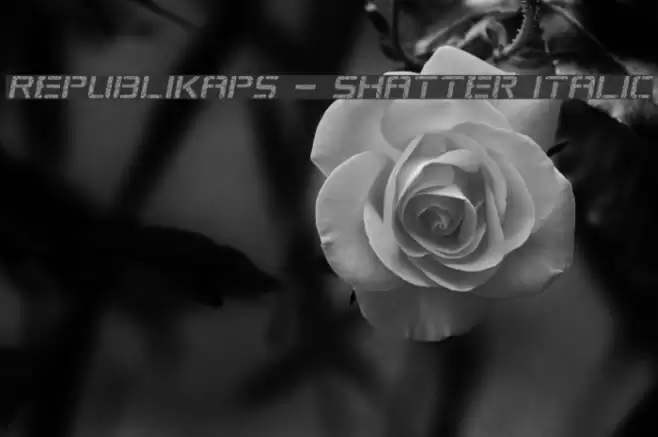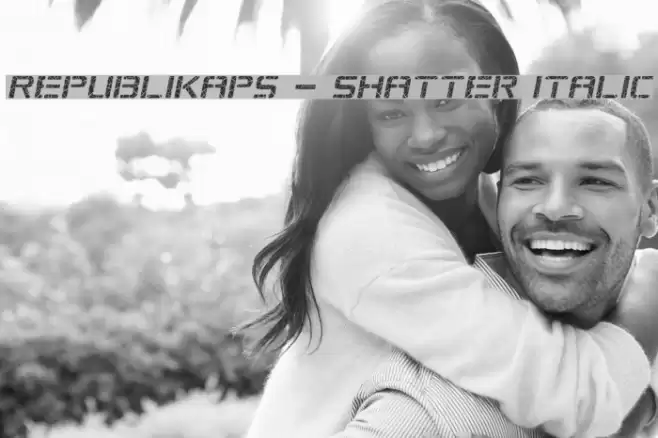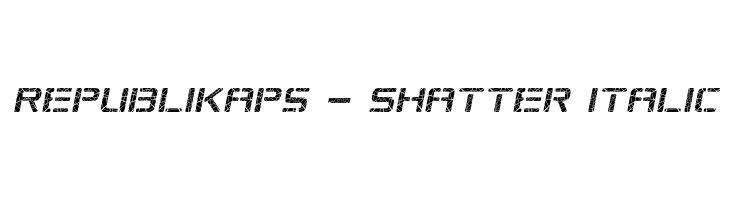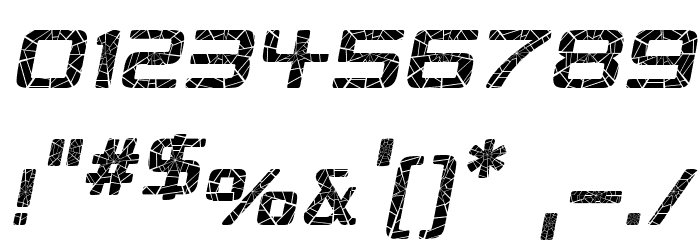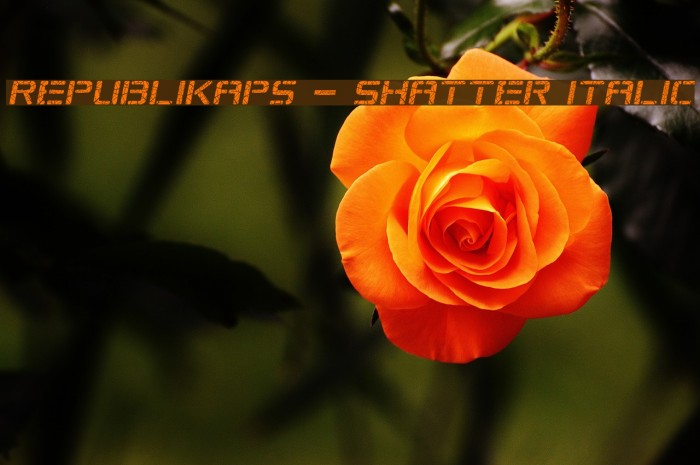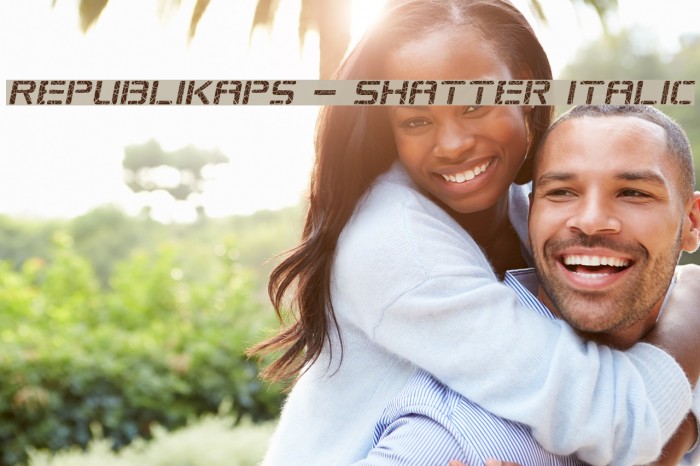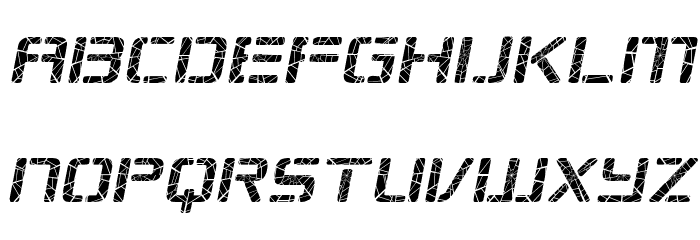
Republikaps - Shatter Italic Font
Republikaps - Shatter Italic Description
This font features a unique shattered effect, giving each character a fragmented and dynamic appearance. The letters are italicized, adding a sense of movement and energy. The geometric, broken pattern within each character creates a visually striking texture that stands out. This font is bold and eye-catching, making it suitable for attention-grabbing designs. The uppercase and lowercase letters maintain consistency in style, and the numbers and special characters are equally distinctive, ensuring a cohesive look across all text elements. The font's shattered design is both modern and edgy, perfect for projects that require a bold statement.
A bold, italicized font with a unique shattered effect for dynamic designs from Uncategorized fonts.
- Proposed Projects: Ideal for posters, album covers, video game graphics, and branding that requires a bold, modern look.
- Overall Style: Modern, Edgy